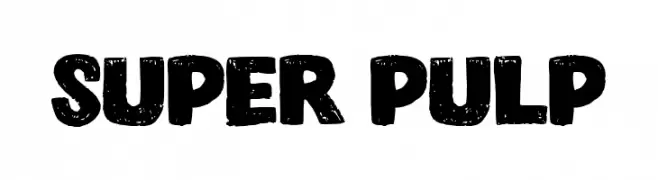
( Fonts by Jorge Morón )
A bold, dynamic font with slanted characters and strong visual impact.
( Fonts by fsuarez913 )
A bold, distressed font with a vintage, handcrafted look.
A bold, playful font with exaggerated curves and a whimsical style.
( Fonts by Jens R. Ziehn - www.filmhimmel.com )
A bold, jagged font with a retro, sci-fi aesthetic and dynamic energy.
( Fonts by bob istheowl http://luc.devroye.org/bobistheowl.html )
Illustrative font with fantasy-themed scenes for each character.
( Fonts by Daniel Gauthier )
Comic-inspired dingbat font with retro illustrations for each character.
( Fonts by bob istheowl http://luc.devroye.org/bobistheowl.html )
A pictorial dingbat set featuring dramatic fantasy illustrations.